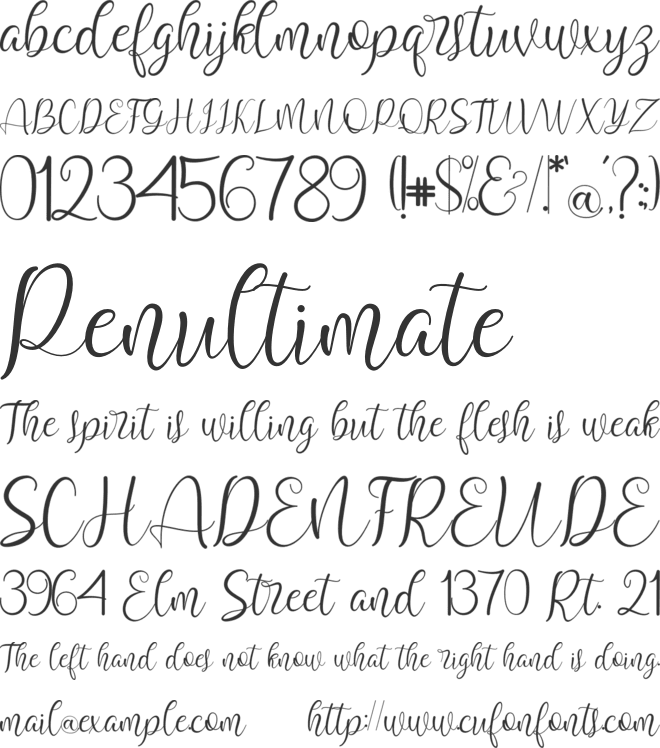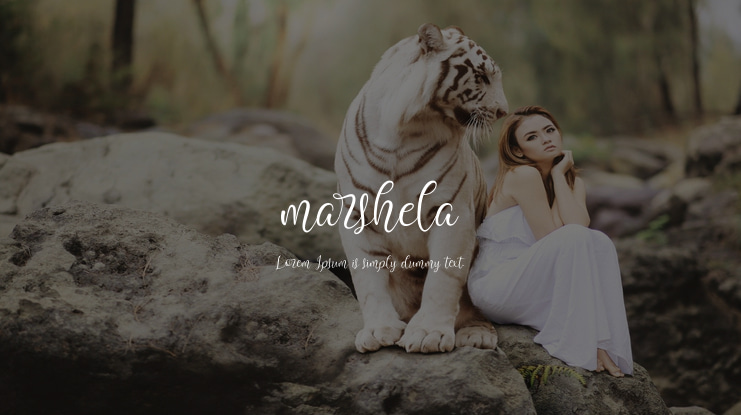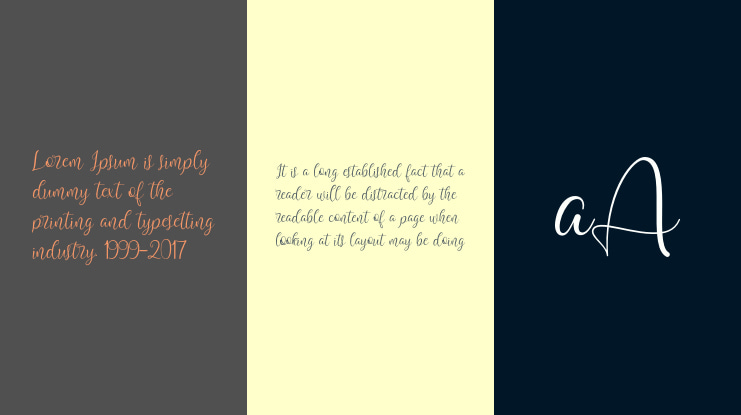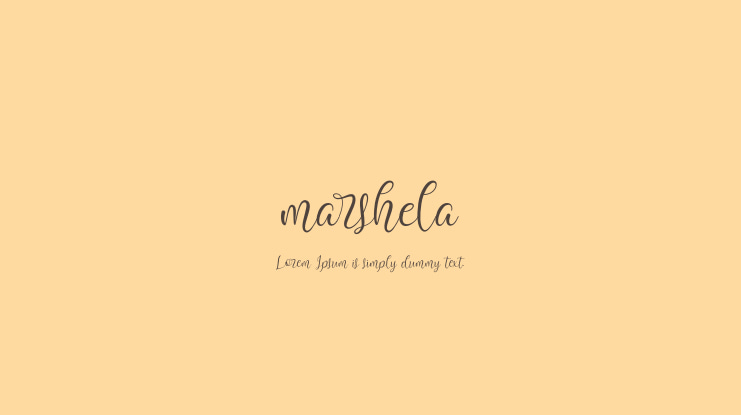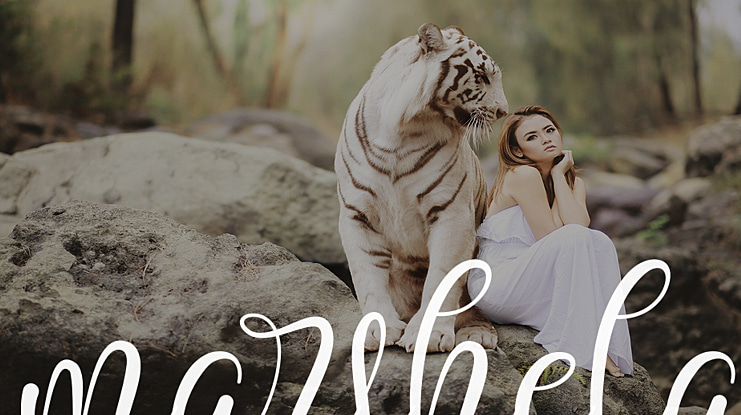
marshela Font
Marshela is a Beautiful Handwritten font.
Marshela is perfect for branding, logo, watermark, business card, clothing, magazine, web, and any other design projects. looks Eye Catching & Naturally.